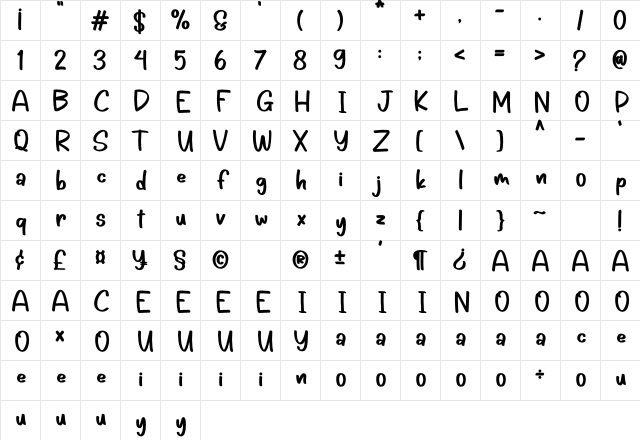
Teacher Regular Free Font
Teacher Regular
Foundry: Graphix Line Studio
Designer: Aldi Raya Pradipta
Design Context for Teacher
Teacher is a composed and adaptable typeface that performs quietly and consistently across a wide range of design contexts.